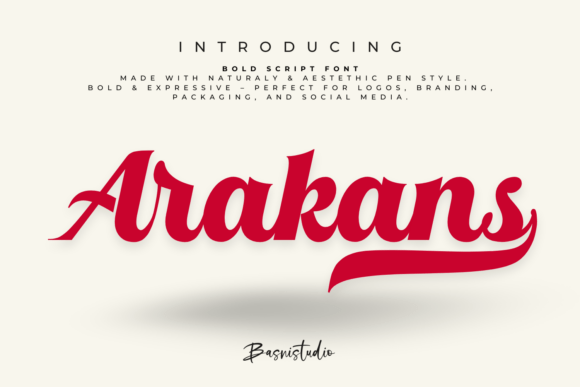
Enter the Arakans Font, a bold calligraphy font designed to make a statement. With its authentic, modern calligraphy style, this font is perfect for brands that demand attention. From logos to packaging, and social media to advertising, the Arakans Font is a versatile and expressive tool that can help you create a lasting impression. Whether you’re a seasoned designer or just starting out, this font is a valuable addition to your toolkit, offering a clean brush texture that adds character and uniqueness to any design.
Key Features of Arakans Font
- Font Family: Arakans Font is a script font designed to resemble handwritten text, making it ideal for creative and artistic purposes.
- Unique Characteristics: Features a distinctive, flowing script style with subtle connections between letters, adding a touch of elegance and sophistication to any design.
Arakans Font Review
Overall, I have mixed feelings about Arakans Font. While it has its strengths, it also falls short in some areas. Let’s dive into the details.
- The unique blend of traditional and modern elements is quite refreshing. It’s not a typical font, and I appreciate its distinctiveness.
- The font is highly legible, even at smaller font sizes, making it suitable for a wide range of applications.
- The font’s versatility shines through in its various weights and styles, allowing for a high degree of customization.
- The font may be too ornate for some projects, potentially overwhelming the content.
- The font’s open type features, while a strength in some cases, can make it difficult to pair with other fonts.
- The font’s high contrast may not be suitable for all color schemes or backgrounds.
Overall, I think Arakans Font is a solid choice for designers looking for a unique and highly customizable font. However, it may not be the best fit for every project. With careful consideration and planning, it can be a valuable addition to any design toolkit.
For optimal results, use Arakans Font in combination with high-quality images and design elements. Experiment with different font sizes, styles, and colors to achieve a unique look. Use Arakans Font for headings, titles, and other emphasis elements to add visual interest to your designs.
Arakans Font is suitable for a variety of design projects, including:
– Graphic design and visual communications
– Digital design and user interface
– Print design and marketing materials